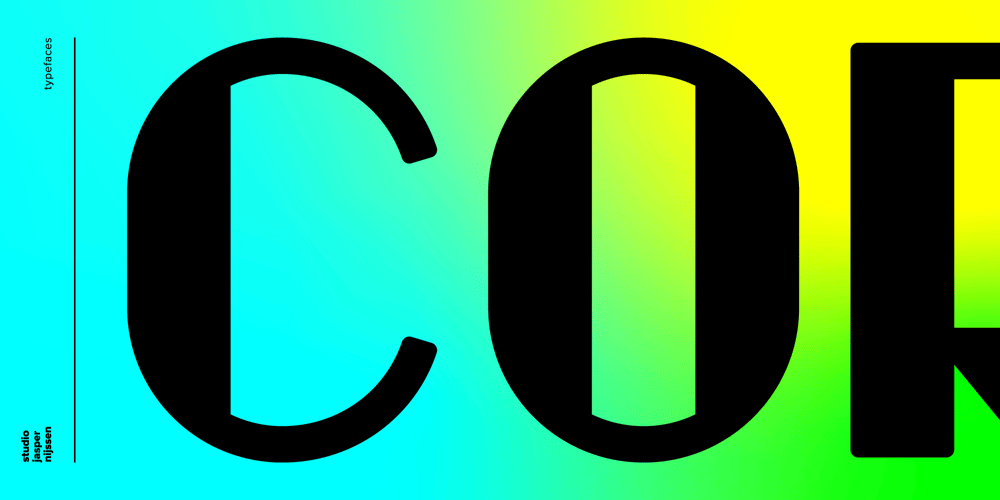
WBP Cor Font Family was designed by Jasper Nijssen and published by Studio Jasper Nijssen. WBP Cor contains 1 styles and family package options. Introducing the WBP Cor. A retro font based on the old drugstore signage (DROGISTERIJ). Many happy customers have observed it and is now made available for all. Accents have been added, and there quite are a few alternative glyphs. The A has two options for example: there’s a sharp version consistent with the original signage, but also a rounded version consistent with the rest of de design. The font can be used to recreate retro signage or other niche designs.